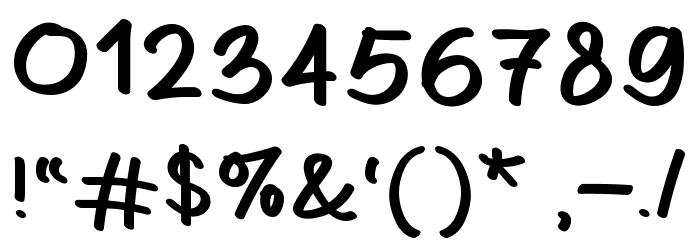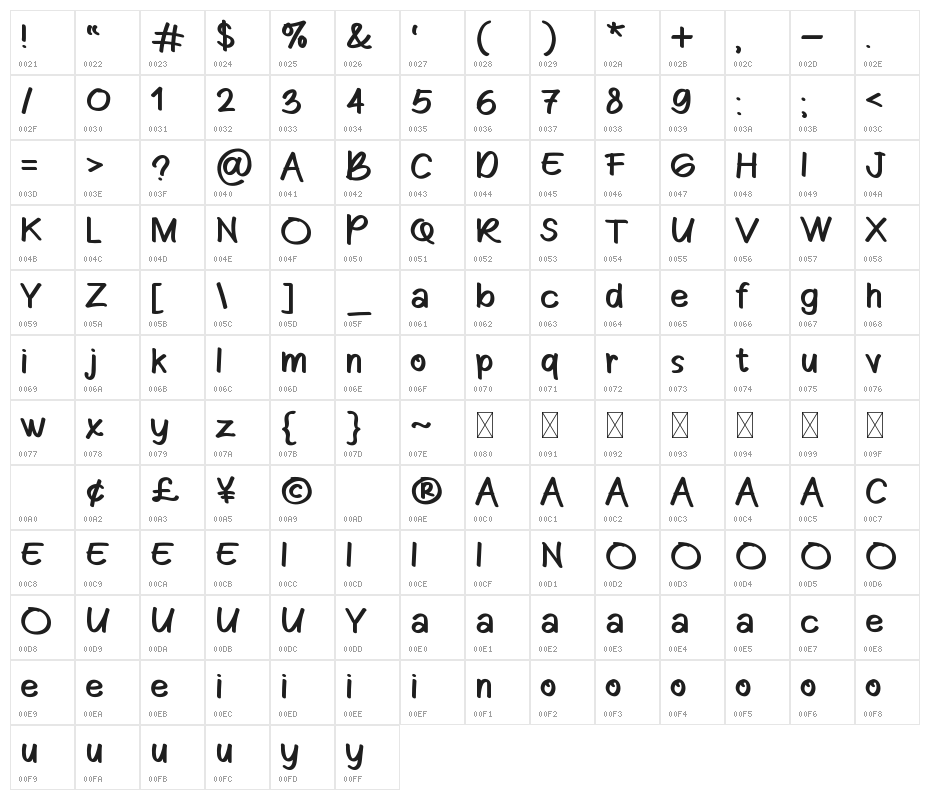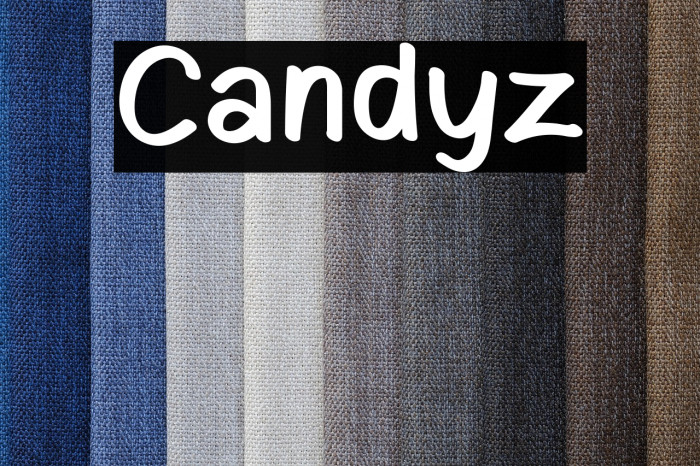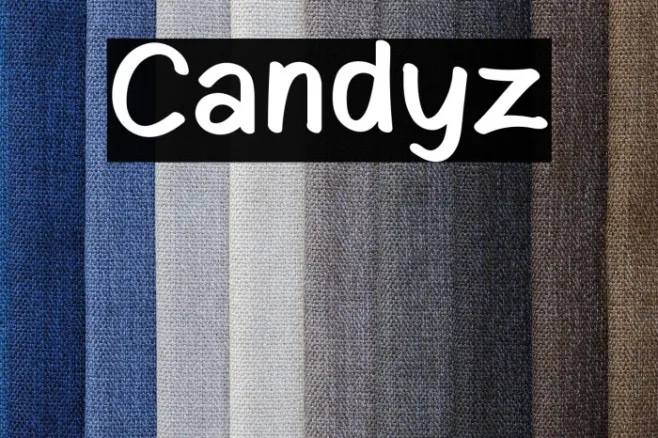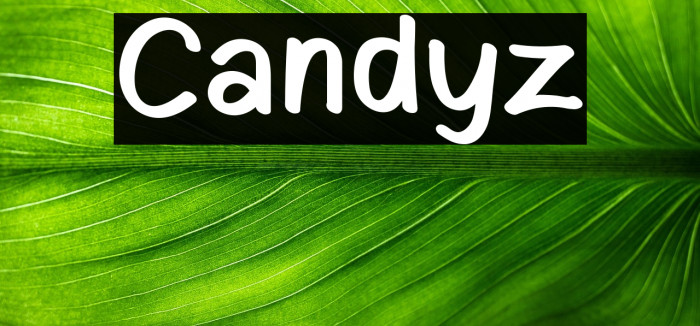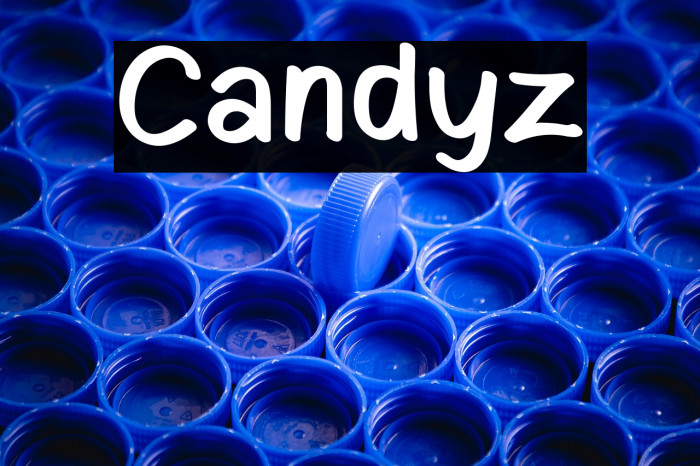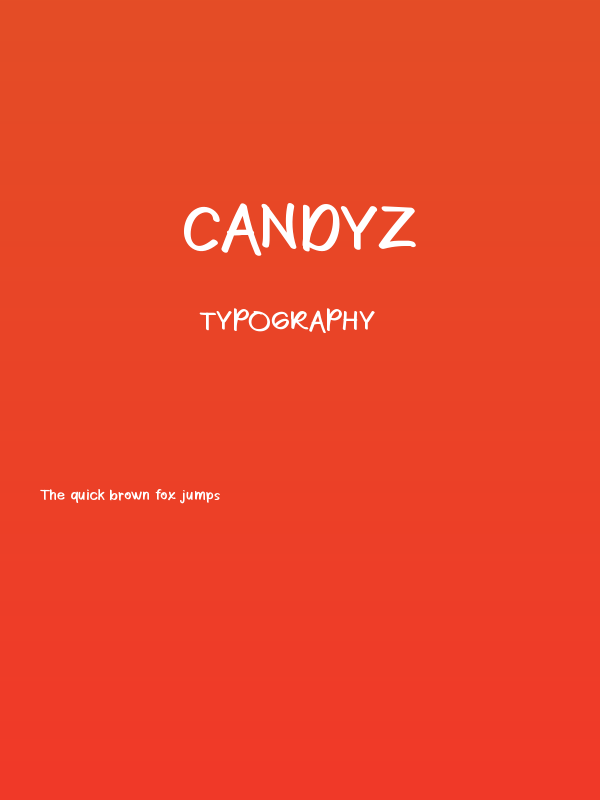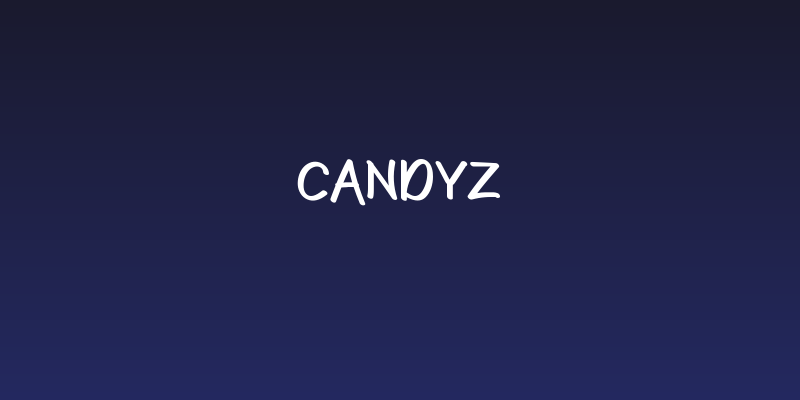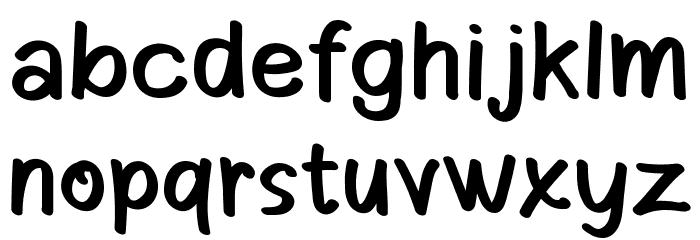
Candyz Font
Candyz Description
This playful and whimsical font features rounded, bold characters with a hand-drawn aesthetic. The letters are slightly irregular, adding a casual and friendly feel. The uppercase and lowercase letters are well-balanced, with a consistent stroke width that maintains readability. The numbers and special characters complement the alphabet with the same playful style, making it suitable for creative projects. The font's overall appearance is approachable and fun, ideal for designs that aim to convey warmth and friendliness.
| Proposed Projects | Ideal for children's books, playful branding, greeting cards, and casual invitations. |